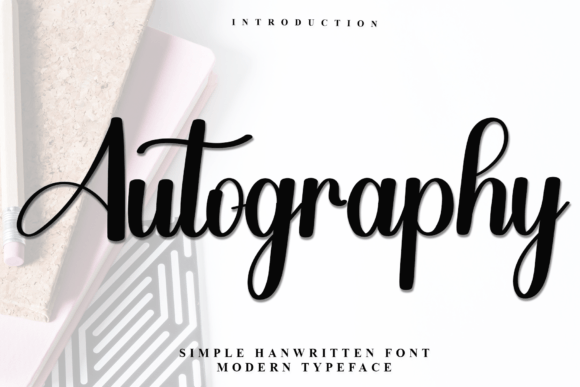
The Magic of Autography Font: Elevate Your Holiday Designs
A Festive Favorite: What I Love About Autography Font
Autography Font is more than just a typeface – it’s an experience. Here are a few things that make it a standout:
- ✨ Decorative elements: The font comes with a range of decorative elements that add a touch of whimsy to your designs.
- ✅ Unique flair: Autography Font has a distinct personality that sets it apart from other festive fonts.
- 📚 Perfect for holiday projects: From greeting cards to gift labels, Autography Font is the perfect choice for any holiday-themed project.
The Honest Review: A Few Quirks to Consider
While Autography Font is a fantastic choice for holiday designs, there are a few things to keep in mind:
- 🤔 Limited use outside of holidays: While the font is amazing for holiday projects, it might not be the best choice for other types of designs.
The Story Behind Autography Font
Autography Font was designed with the holiday season in mind. The designer aimed to create a font that would capture the magic and cheer of this special time of year. With its unique flair and decorative elements, Autography Font is sure to become a favorite among designers and crafters.
| What is Autography Font? | Autography Font is a festive typeface designed to capture the spirit of the holiday season. |